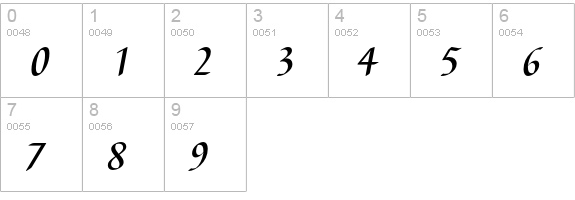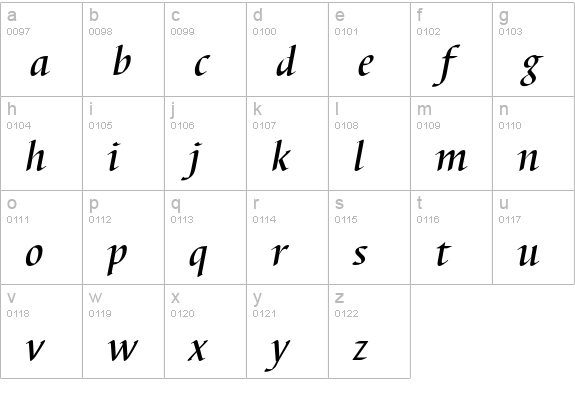
Barbedor T Medium Italic is a balanced, medium-weight, italic variant in the Barbedor typeface family \xE2\x80\x94 well suited to sub-headlines, navigation, and balanced editorial work.
Barbedor T Medium Italic font exudes elegance and sophistication with its sleek design and graceful curves. The italic style adds a touch of flair and modernity to any text, making it perfect for conveying a sense of style and professionalism. Whether used for headings, quotes, or body text, Barbedor T Medium Italic is sure to make a statement. The beauty of Barbedor T Medium Italic font lies in its versatility - suitable for both print and digital media, it effortlessly adapts to various design projects. Its legibility and readability make it a top choice for designers looking to add a touch of sophistication to their work. And the best part? Barbedor T Medium Italic font is available for free download at FontsMarket.com. Now you can elevate your designs without breaking the bank. Don't miss out on this opportunity to add a touch of class to your projects with the stunning Barbedor T Medium Italic font.